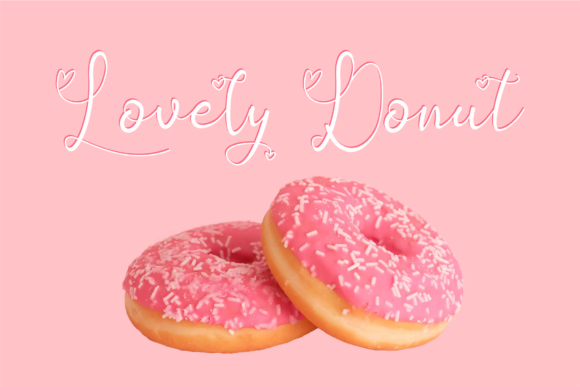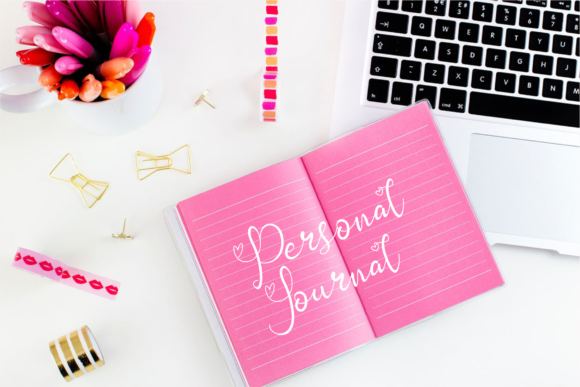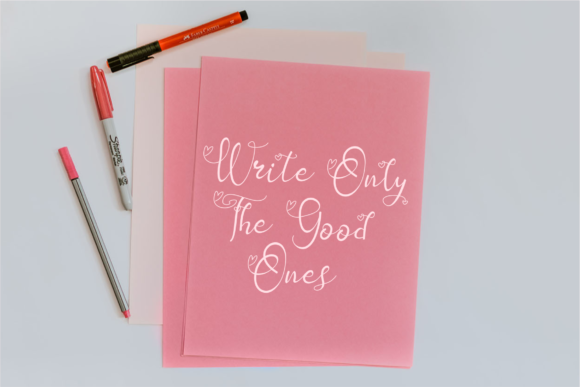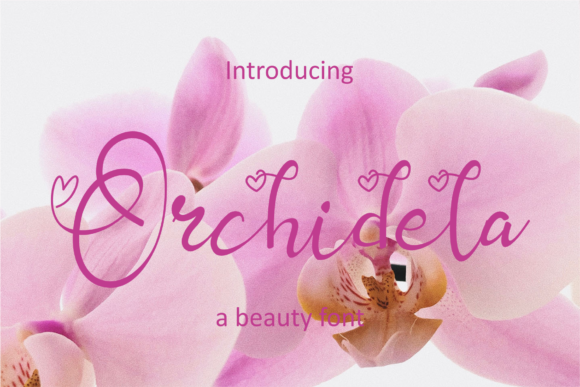
Introduction to Orchidela Font
Orchidela is a stylish and incredibly elegant script font.
Key Features of Orchidela Font
Why Choose Orchidela Font?
Orchidela Font offers exceptional quality and versatility, making it a valuable addition to your design toolkit. Whether you’re creating for personal projects or commercial use, Orchidela Font delivers professional results.